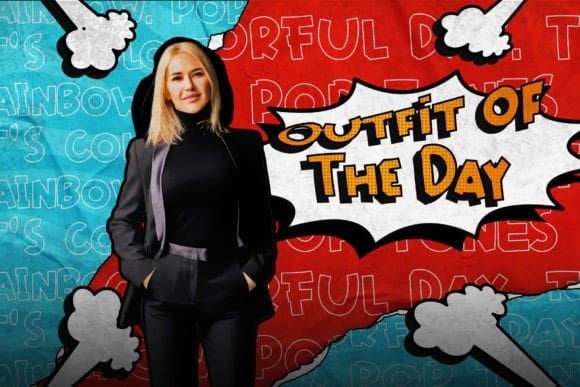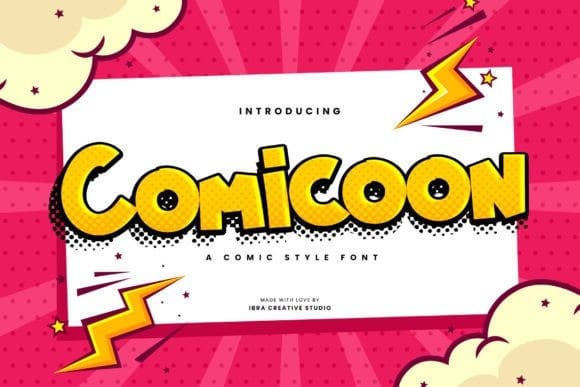
Comicoon Display Font
Comicoon Display Font is a vibrant and playful comic-style font that bursts with fun and liveliness. Inspired by the bold and dynamic lettering found in classic comic books, Comicoon captures the essence of joyful storytelling. Each letter is adorned with expressive details, reminiscent of hand-drawn illustrations. With its whimsical curves and exaggerated shapes, Comicoon instantly transports us to the colorful world of comics. It brings a sense of energy and excitement to any design, making it a perfect choice for comic books, graphic novels, and playful branding. Comicoon Display is a delightful typeface that embraces the spirit of adventure and imagination, inviting readers to embark on a visual journey filled with laughter and delight.